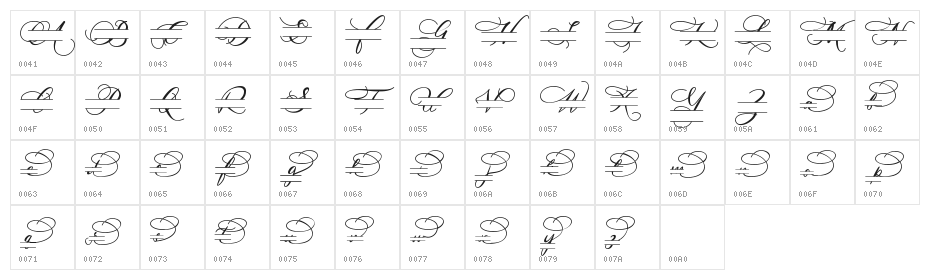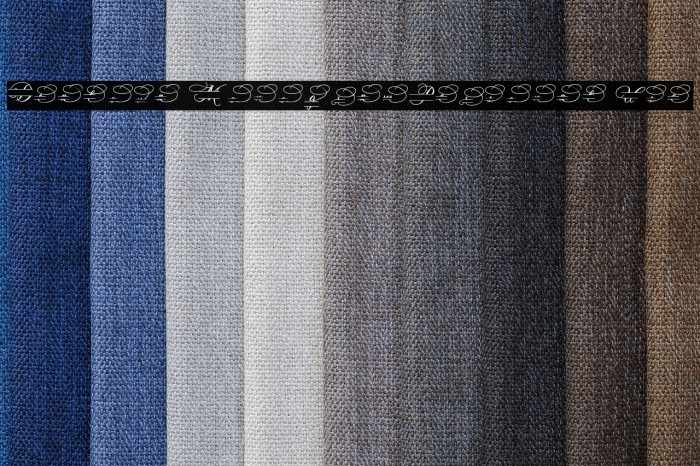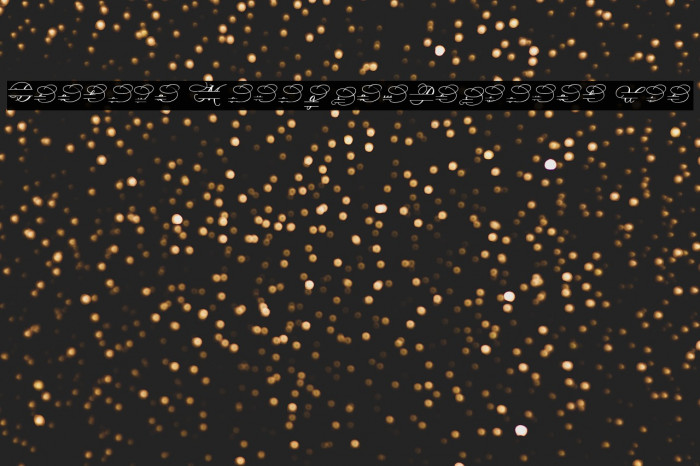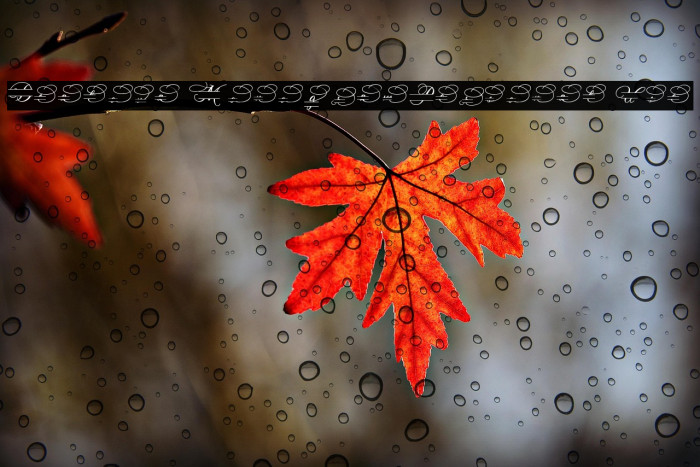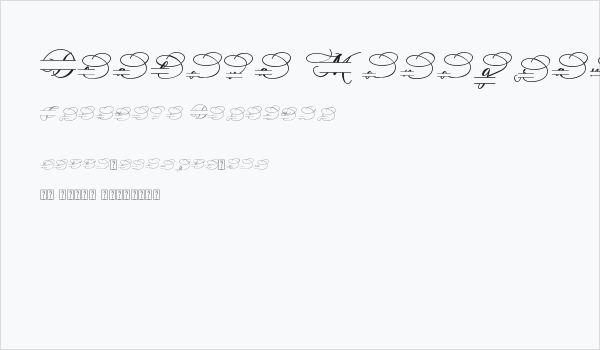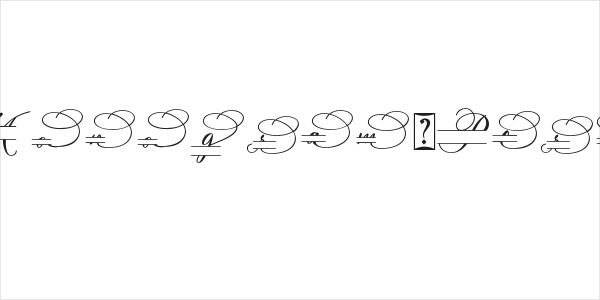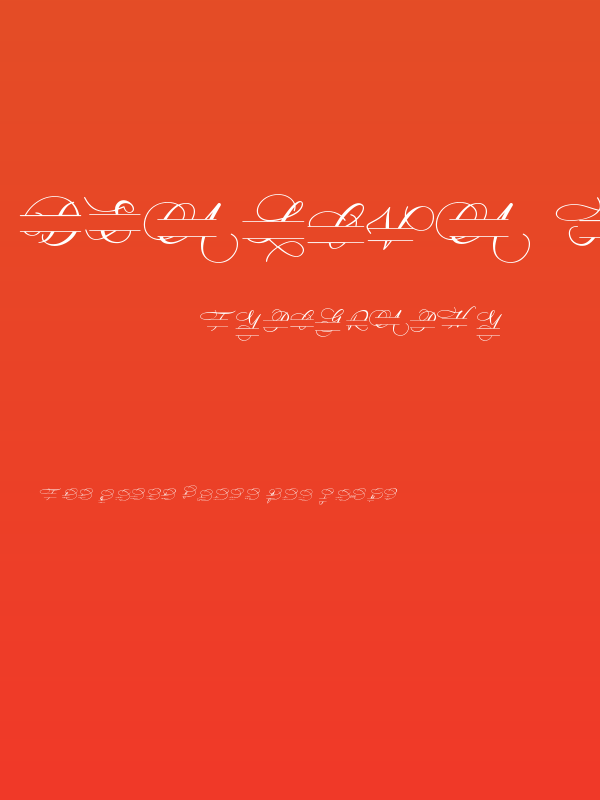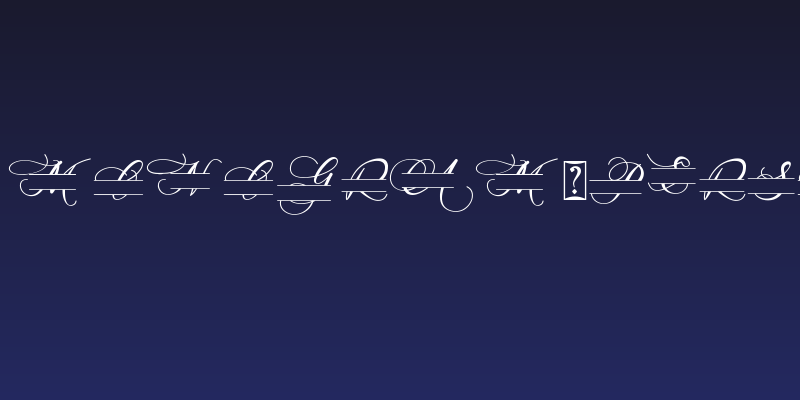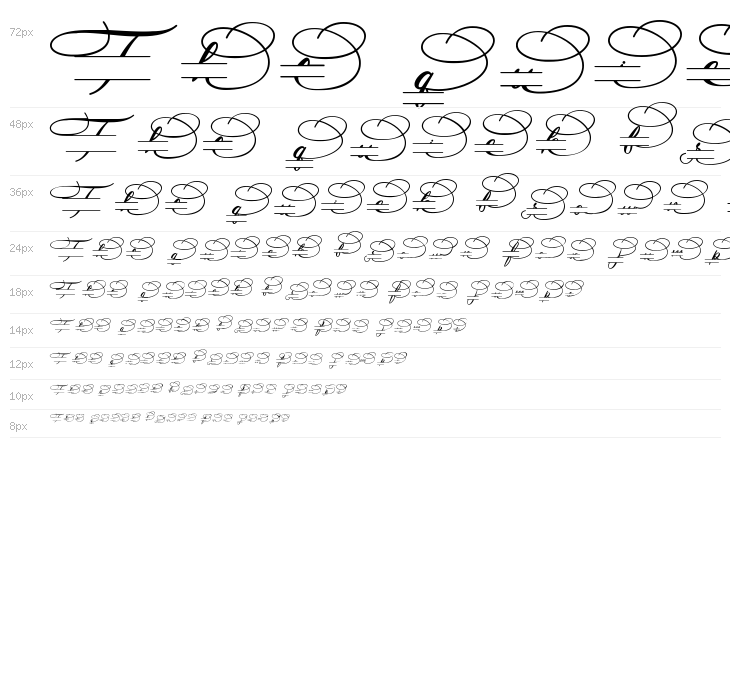
Dealova Monogram_Personal Use Font
Dealova Monogram_Personal Use Description
This font features an elegant and intricate design, characterized by its flowing script style and elaborate swashes. Each letter is adorned with decorative flourishes, creating a sophisticated and ornate appearance. The characters are interconnected with a continuous line, adding to the fluidity and grace of the design. The font maintains a consistent stroke width, contributing to a harmonious and balanced look. Its artistic and decorative nature makes it suitable for projects that require a touch of elegance and refinement.